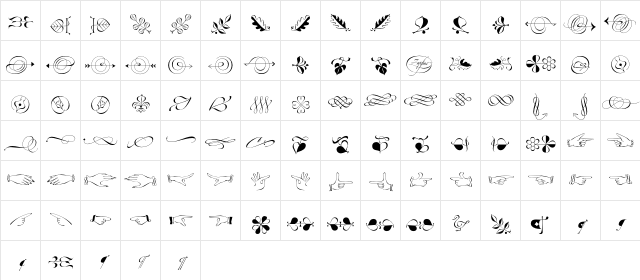
LinotypeZapfinoOrnaments Regular
Design Context for LinotypeZapfinoOrnaments Typeface
LinotypeZapfinoOrnaments brings ornamental detail and strong personality to headlines and identities, where visual impact matters more than quiet functionality.
Font Pairing: Pair with a clean neutral sans-serif for body copy to let LinotypeZapfinoOrnaments's character lead without overwhelming the composition.
Pro Tip: Treat LinotypeZapfinoOrnaments as the centrepiece of your typographic hierarchy. One strong heading set in a decorative face can carry an entire layout.